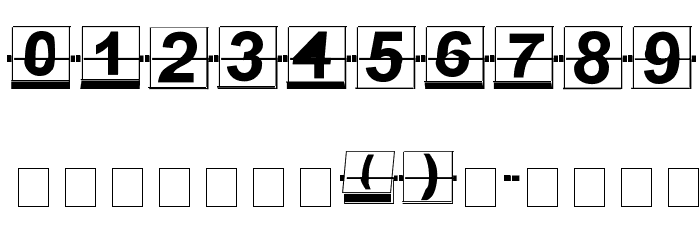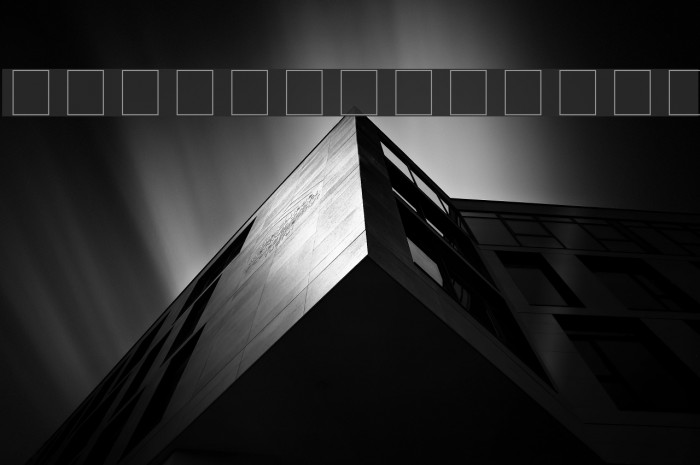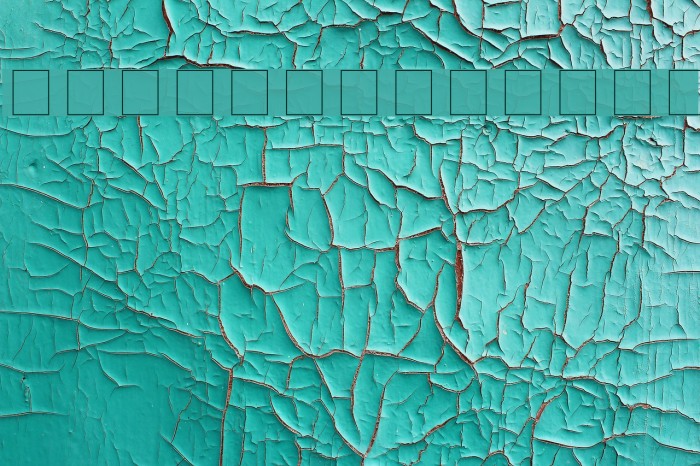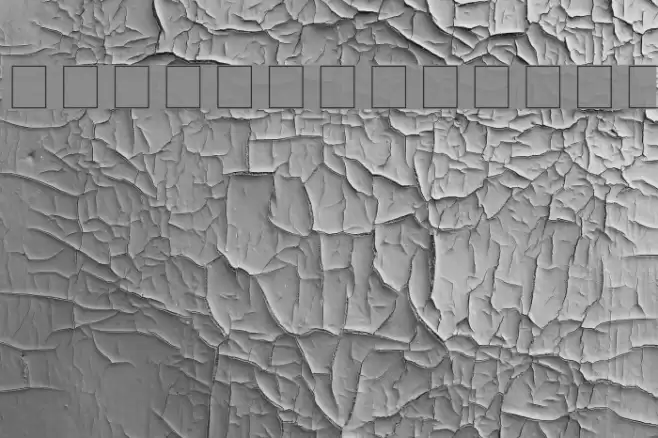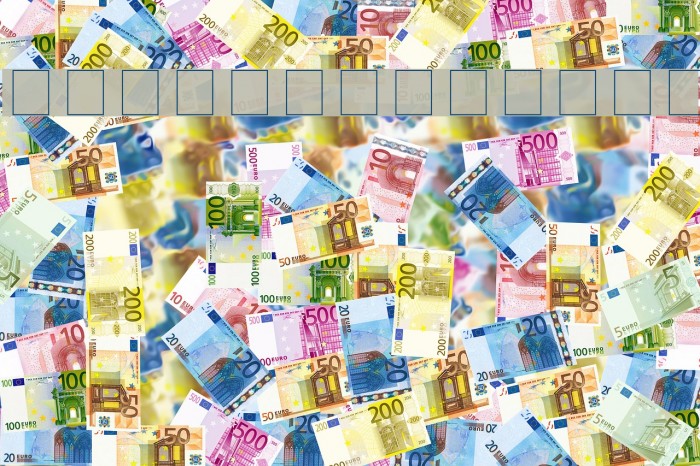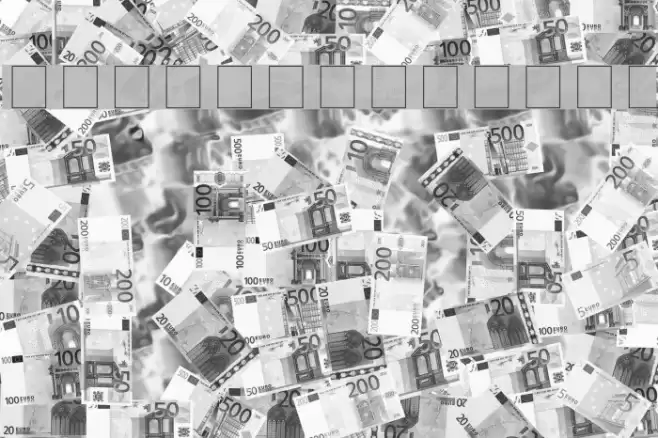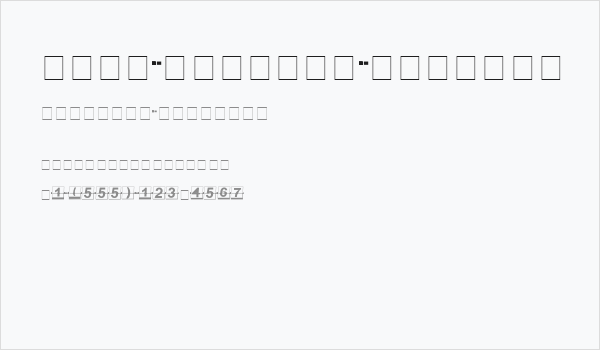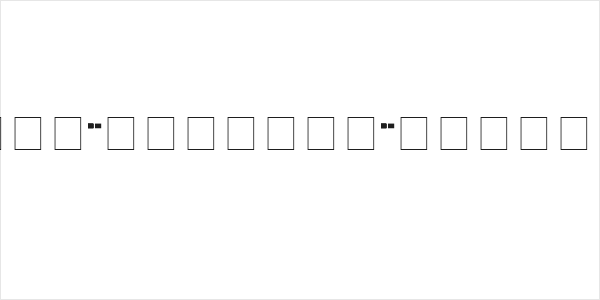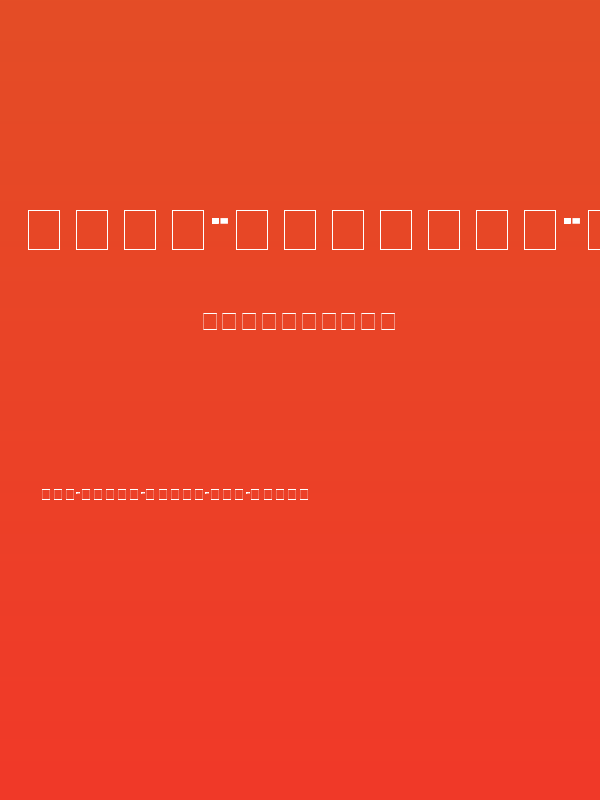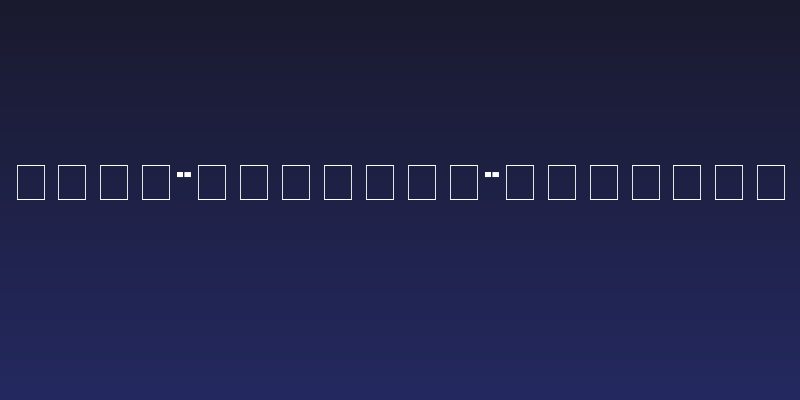
Page Counter Flipper Font
Page Counter Flipper Description
This font is designed to mimic the appearance of a mechanical page counter or flipper display. Each character is enclosed within a rectangular box, giving it a structured and mechanical look. The numbers are bold and clear, with a distinct separation between each digit, reminiscent of old-fashioned mechanical counters. The font is highly legible, making it suitable for displays that require clear and immediate recognition of numbers. The style is both nostalgic and functional, capturing the essence of analog devices in a digital format.
| Overall Style | Retro, Mechanical |
| Use Case | Displays, Timers, Retro-themed designs |
| Proposed Projects | Ideal for projects that require a retro or mechanical aesthetic, such as vintage-themed websites, clock displays, or any digital interface mimicking analog devices. |